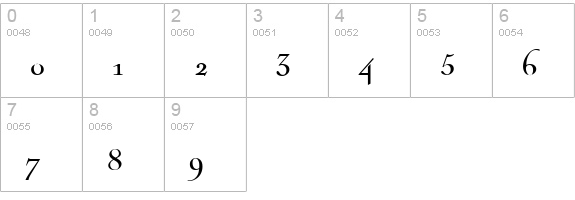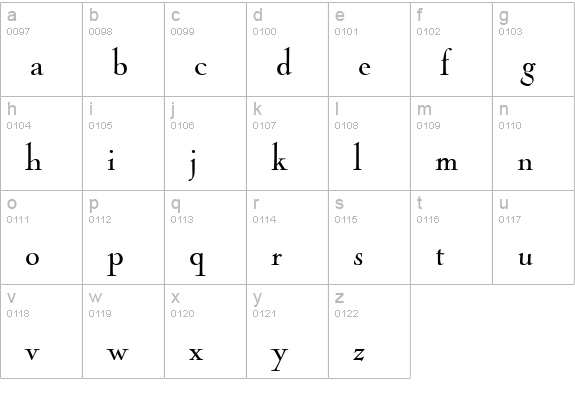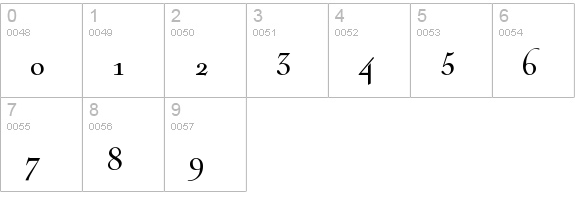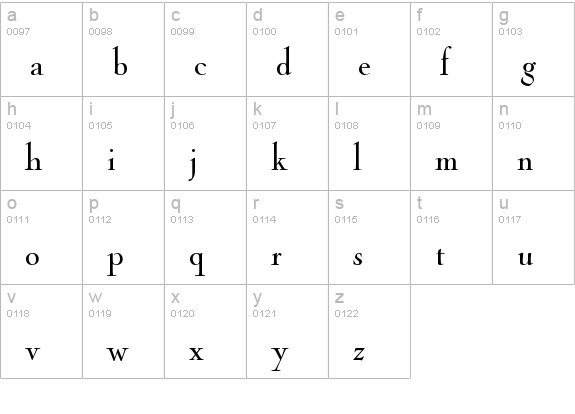
Nicolas-Regular is the standard, neutral variant in the Nicolas typeface family \xE2\x80\x94 well suited to general body text, paragraphs, and standard typographic work.
Nicolas-Regular is a versatile and elegant font that exudes a timeless appeal. With its clean lines and balanced proportions, this typeface is perfect for a wide range of design projects, from branding to editorial design. The classic yet modern aesthetic of Nicolas-Regular makes it a popular choice among designers looking for a reliable and sophisticated font. One of the best things about Nicolas-Regular is that it is available for free download at FontsMarket.com. This means that you can easily access this high-quality font without any cost, making it a great option for both personal and commercial use. Whether you're working on a professional project or simply want to enhance your creative endeavors, Nicolas-Regular is a fantastic choice that won't break the bank. With its timeless design and accessibility, Nicolas-Regular is a must-have font for any designer looking to elevate their work with a touch of sophistication. Download it for free today and see how this versatile font can enhance your next project.